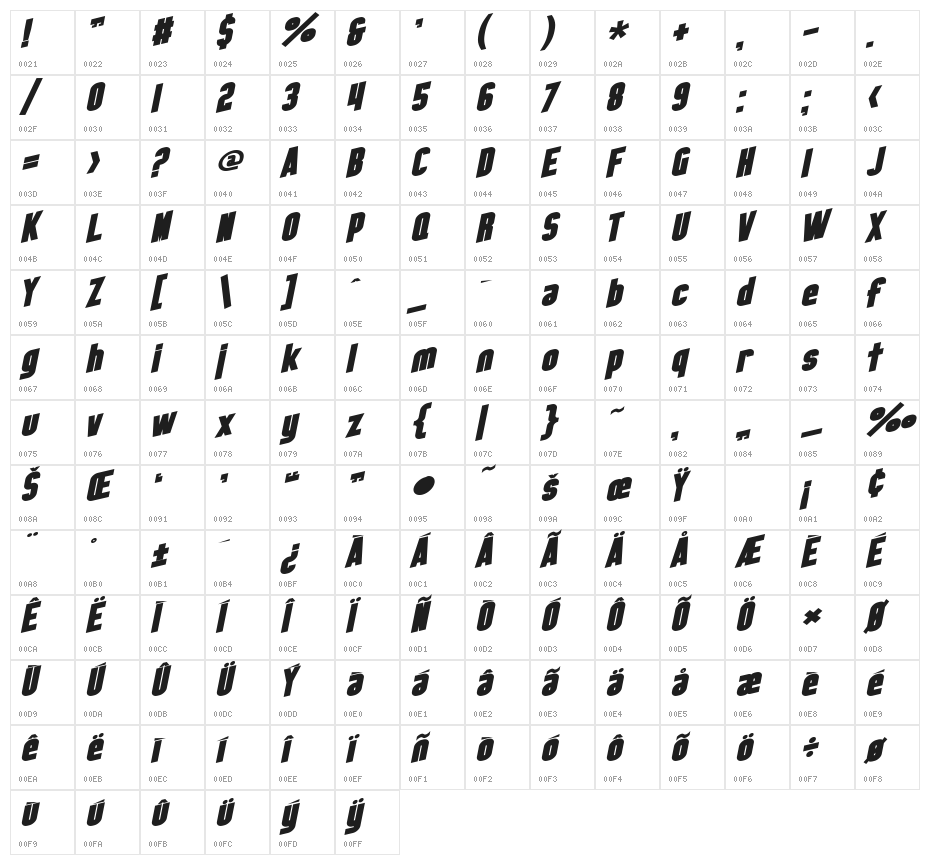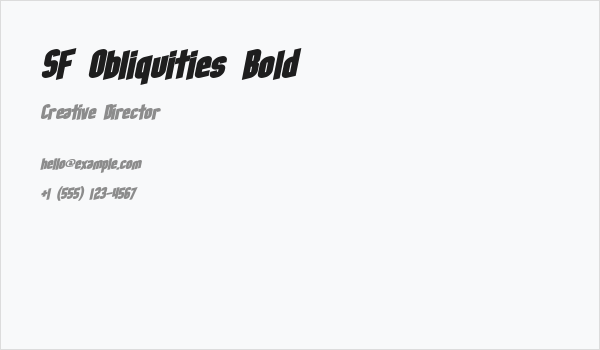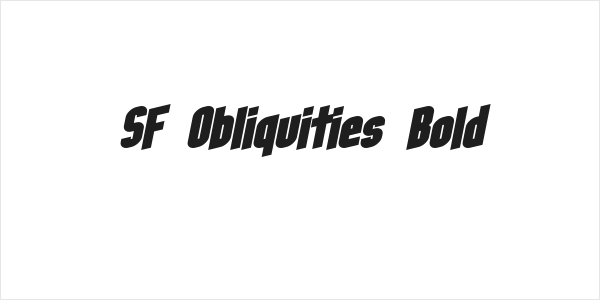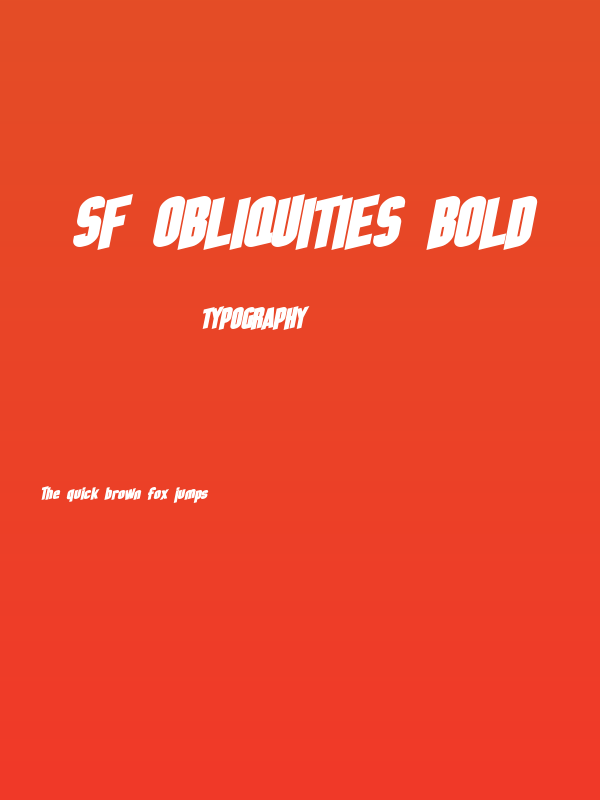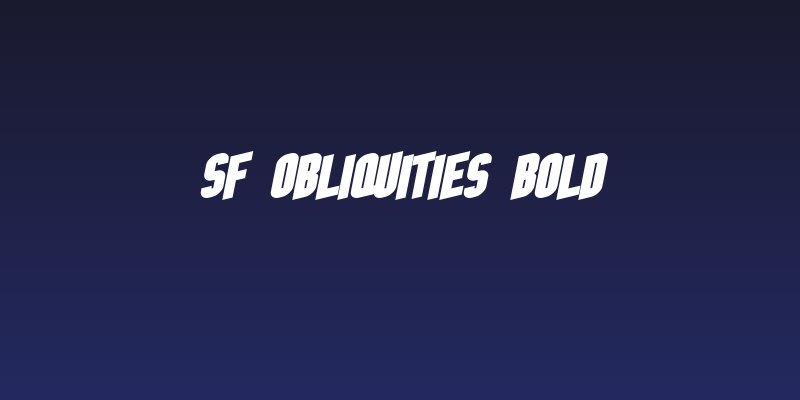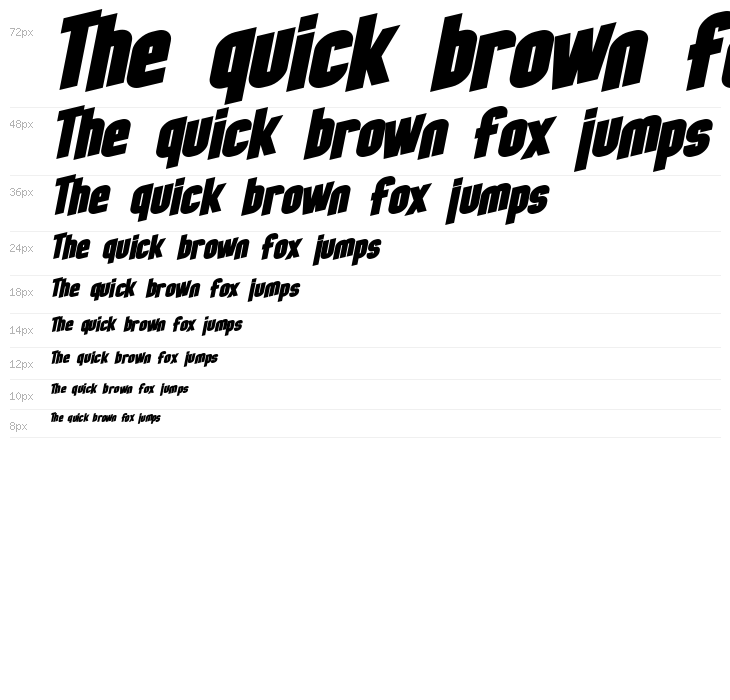
SF Obliquities Bold Font
SF Obliquities Bold Description
This bold and dynamic font features a strong, slanted design that conveys a sense of speed and movement. The characters are thick and robust, with sharp angles and a forward-leaning posture that adds a sense of urgency and modernity. The uppercase and lowercase letters maintain a consistent style, with the lowercase slightly more rounded. Numbers and special characters follow the same bold and italicized pattern, ensuring uniformity across all text. The font's aggressive style makes it ideal for attention-grabbing headlines or impactful logos.
| Proposed Projects | Ideal for sports branding, dynamic posters, modern advertising, and impactful headlines. |